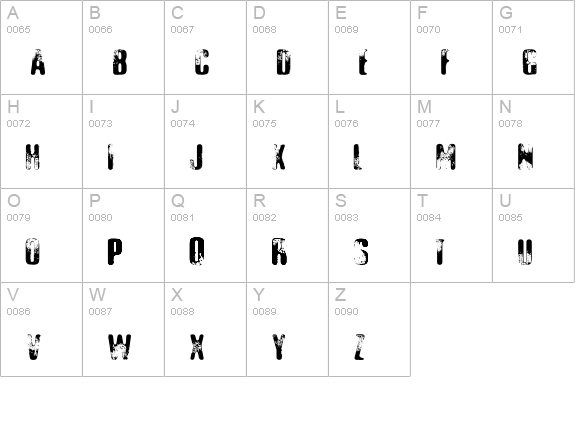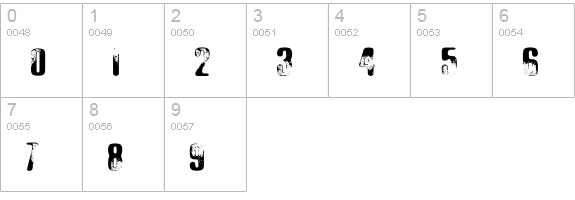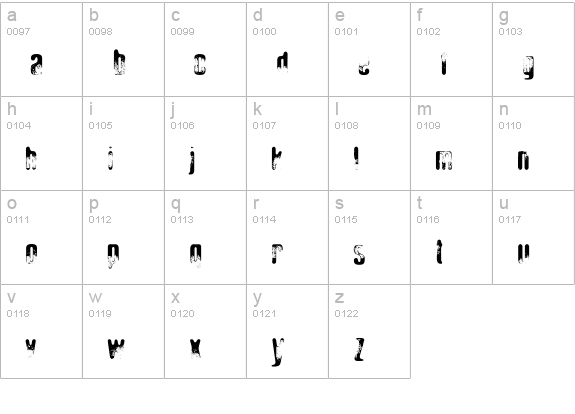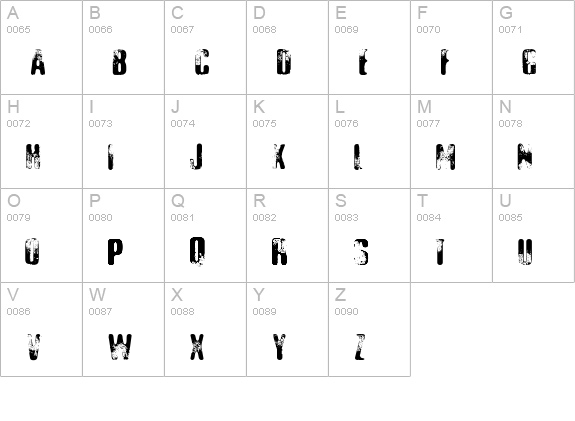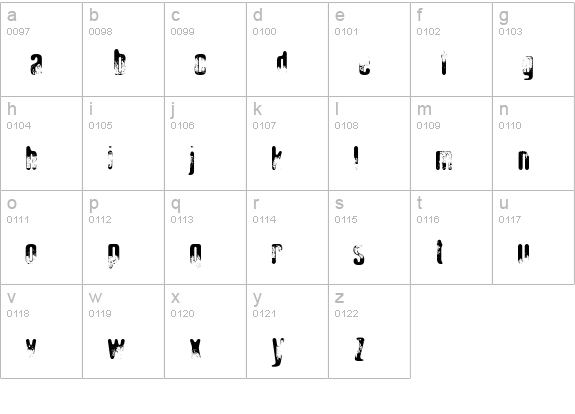
Elliot's Bad Day 4 Font Details
Elliot's Bad Day 4 font is a quirky and playful typeface that perfectly captures the essence of a chaotic and unpredictable day. With its uneven lines and bold strokes, this font exudes a sense of spontaneity and energy, making it ideal for projects that require a touch of whimsy. Despite its name, Elliot's Bad Day 4 font is anything but bad when it comes to design possibilities. Whether you're working on a poster, website, or branding project, this font will add a unique and eye-catching element to your work. Best of all, Elliot's Bad Day 4 font is free to download at FontsMarket.com. So why not add this fun and dynamic font to your collection today and inject some personality into your designs?